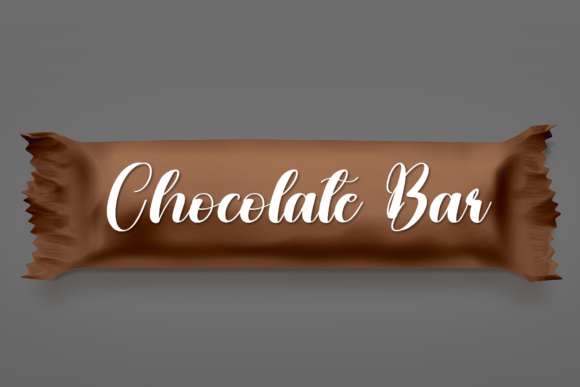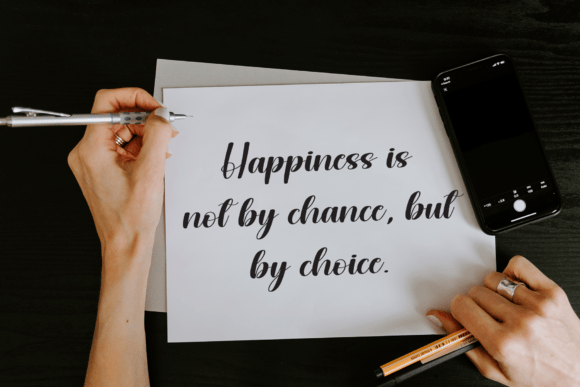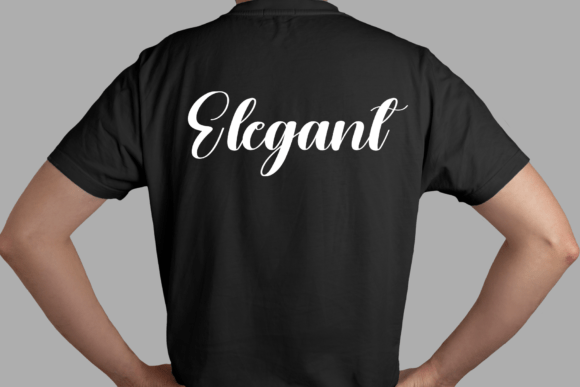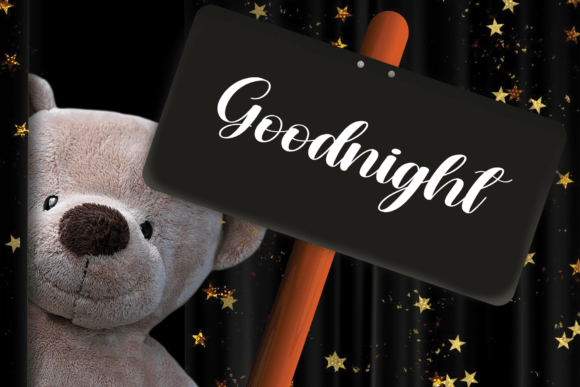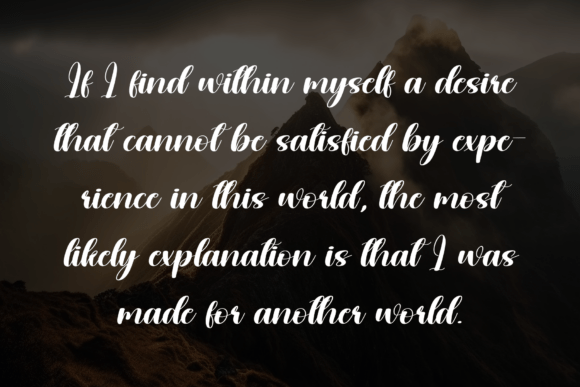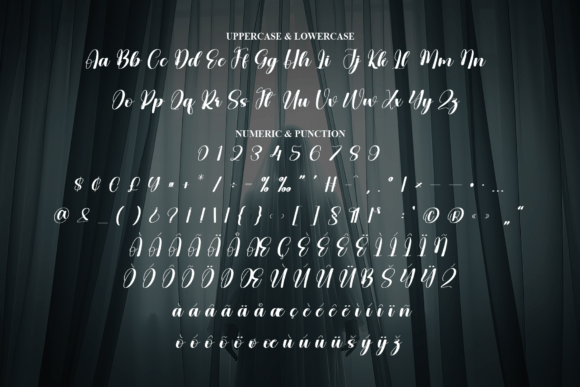
The Elusive Perfect Font: My Encounter with Ghosting Font
I still remember the design project that had me on the edge of my seat. I was working on a logo for a high-end boutique, and no matter how hard I tried, I just couldn’t find the right font. The client wanted something elegant, modern, and sophisticated, but everything I tried seemed to fall flat. That’s when I stumbled upon Ghosting Font, and let me tell you, it was love at first sight! 💫
An Honest Review of Ghosting Font
- ✨ Elegant and contemporary design that exudes refinement
- ✅ Fluid curves and carefully crafted letterforms that make it a joy to use
- ✅ Highly versatile and suitable for a wide range of design projects, from logos to social media graphics
- ✅ Natural flow and polished details that give it a sophisticated touch
- ⚠️ Some users may find the font a bit too delicate for certain design applications
- ⚠️ Limited availability of stylistic alternates, which may limit creative experimentation
The Backstory Behind Ghosting Font
According to the designer, Ghosting Font was inspired by the art of hand-drawn calligraphy. The designer wanted to create a font that captured the elegance and sophistication of traditional calligraphy, but with a modern twist. The result is a font that’s both refined and contemporary, perfect for designers who want to add a touch of luxury to their work.
Q: What makes Ghosting Font so special?
A: Ghosting Font’s unique blend of elegance and modernity makes it a standout in the world of typography. Its fluid curves and carefully crafted letterforms give it a sophisticated touch that’s hard to find in other fonts.
Q: Is Ghosting Font difficult to use?
A: Not at all! Ghosting Font is designed to be user-friendly and versatile. With its clean lines and intuitive design, it’s easy to use even for those who are new to typography.